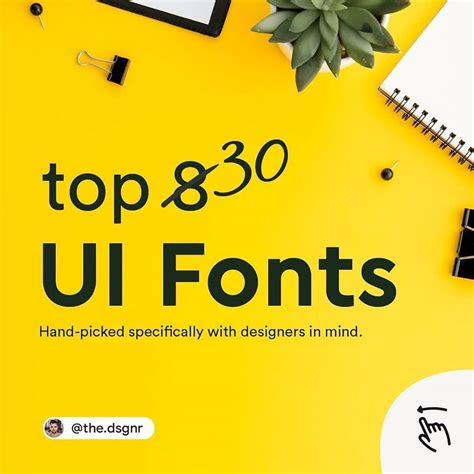
Unlock the Power of UI Fonts: The Ultimate Guide to Choosing and Using the Right Typeface for Your Digital Designs
UI fonts are essential for creating a visually appealing and user-friendly interface. Choose the right font to enhance your design and user experience.
Have you ever wondered why some websites and apps look more appealing than others? One of the key factors that contribute to a website's overall design is its choice of UI fonts. UI fonts play a crucial role in shaping the user experience and can either make or break the impression of a website or app on its users. From the elegant serif fonts to the modern sans-serif typefaces, there are countless options when it comes to choosing the right font for your website's user interface. So, if you want to create a visually stunning website that stands out from the crowd, it's time to pay attention to your UI fonts!
Introduction
UI fonts play an essential role in designing digital interfaces. They are responsible for making the text readable and legible, which is crucial for user experience. Choosing the right UI font can make a big difference in the overall design of an interface.
Serif Fonts
Serif fonts have small lines or flourishes at the end of each letter. They are commonly used in print media but can also be used in digital interfaces. Serif fonts are best suited for interfaces that require a formal tone, such as academic or corporate websites.
Sans-serif Fonts
Sans-serif fonts do not have small lines at the end of each letter. They are often used in digital interfaces due to their clean and modern appearance. Sans-serif fonts are best suited for interfaces that require a friendly and approachable tone, such as social media platforms.
Display Fonts
Display fonts are decorative fonts that are best suited for headings and titles. They are often used in combination with serif or sans-serif fonts to add visual interest to an interface. Display fonts should be used sparingly and only for larger text.
Script Fonts
Script fonts mimic handwriting and are often used in interfaces that require a personal or artistic touch. They should be used sparingly and only for larger text such as headings or titles. Script fonts can be challenging to read in smaller sizes.
Monospace Fonts
Monospace fonts have equal spacing between each letter and are often used in programming interfaces. They are best suited for interfaces that require a technical or coding tone. Monospace fonts are also useful for displaying tabular data.
Google Fonts
Google Fonts is a free library of open-source fonts that can be used in any project. It includes a wide variety of serif, sans-serif, display, script, and monospace fonts. Google Fonts is an excellent resource for designers who are looking for high-quality fonts that are easy to use.
Font Pairing
Choosing the right combination of fonts is essential for creating a cohesive and visually appealing interface. Designers should choose fonts that complement each other and create contrast. For example, pairing a serif font with a sans-serif font can create an interesting visual contrast.
Font Size
Font size is an essential factor in determining the readability of text in an interface. Text that is too small can be difficult to read, while text that is too large can appear overwhelming. Designers should experiment with different font sizes to find the sweet spot that works for their interface.
Font Color
Font color is another crucial factor in determining the readability of text in an interface. The contrast between the text color and the background color can make a big difference in the legibility of the text. Designers should choose colors that are easy on the eyes and create sufficient contrast.
Conclusion
Choosing the right UI font is critical for creating a visually appealing and readable interface. Designers should consider factors such as font type, size, color, and pairing when selecting fonts for their projects. With the right combination of fonts, designers can create interfaces that are both functional and aesthetically pleasing.
Greetings, dear blog visitors! Today's topic is all about UI fonts and how they can make or break the user experience. Although it may seem like a small detail, choosing the right font for your interface can greatly impact how users perceive your website or app. So, let's dive in and explore the world of UI fonts!
First and foremost, it's important to understand the purpose of UI fonts. Their main function is to convey information to the user in a clear and concise manner. This means that readability should be the top priority when selecting a font. Fonts that are too fancy or hard to read can cause frustration and confusion for users, leading to a negative experience. On the other hand, fonts that are too plain or boring can also be unappealing and fail to capture the user's attention.
So, what's the solution? It's all about finding the perfect balance between readability and visual appeal. Sans-serif fonts like Arial and Helvetica are popular choices for UI design because of their clean and simple look. However, there are many other options out there that can add some personality and uniqueness to your interface. Just remember to always consider the user's experience first and foremost.
In conclusion, UI fonts may seem like a small detail, but they can have a big impact on the overall user experience. When choosing a font for your interface, prioritize readability while also considering visual appeal. With the right font, you can create a seamless and enjoyable experience for your users. Thanks for reading and happy designing!
When it comes to designing a user interface, selecting the right font can make a big difference in how users perceive and interact with your product. It's no surprise that people often have questions about UI fonts. Here are some of the most common ones:
1. What is a UI font?
A UI font, or user interface font, is a typeface that is specifically designed for use in user interfaces. These fonts are optimized for readability at small sizes and on screens with varying resolutions.
2. What are some popular UI fonts?
- Roboto
- SF Pro
- Open Sans
- Lato
- Helvetica Neue
3. How do I choose the right UI font for my project?
When choosing a UI font, consider factors such as legibility, the tone of your brand, and the platform you're designing for. You may also want to test different fonts with your target audience to see which one resonates best with them.
4. Can I use multiple UI fonts in my design?
While it's possible to use multiple UI fonts in a design, it's generally best to stick to one or two fonts to maintain consistency and avoid overwhelming the user.
5. How can I ensure my UI font is accessible?
To ensure your UI font is accessible, make sure it has sufficient contrast with its background, is large enough to be easily read by users with visual impairments, and can be resized without losing its clarity.
By considering these common questions about UI fonts, you can create a user interface that is not only visually appealing but also easy to use and accessible to a wide range of users.